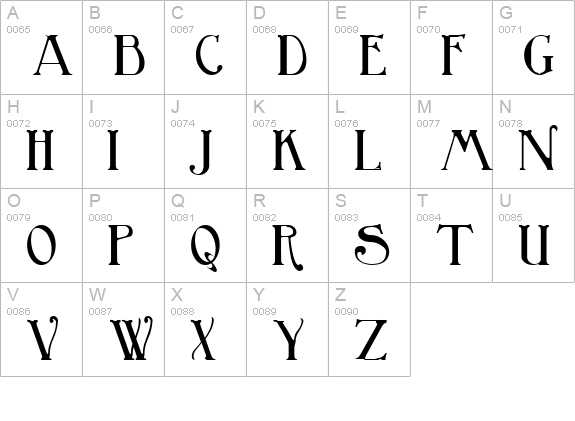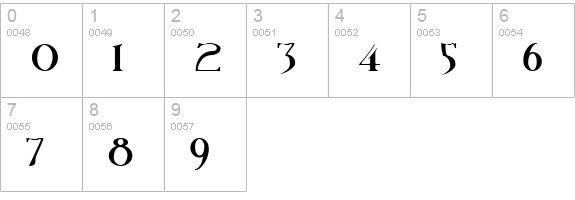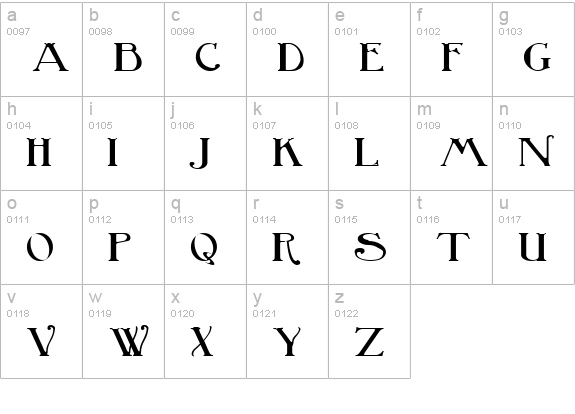
BirminghamTitlingBold Font Details
BirminghamTitlingBold font is a bold and impactful typeface that exudes strength and elegance. With its clean lines and sharp edges, this font commands attention and makes a statement in any design project. The bold weight of BirminghamTitlingBold makes it perfect for headlines, titles, and other prominent text elements. What sets BirminghamTitlingBold font apart is that it is freely available to download at FontsMarket.com. This means you can easily access this powerful font for your personal or commercial projects without any cost. Whether you're designing a poster, logo, or website, BirminghamTitlingBold font will add a touch of sophistication and professionalism to your work. Don't miss out on this stunning font - download BirminghamTitlingBold today and elevate your designs to the next level.